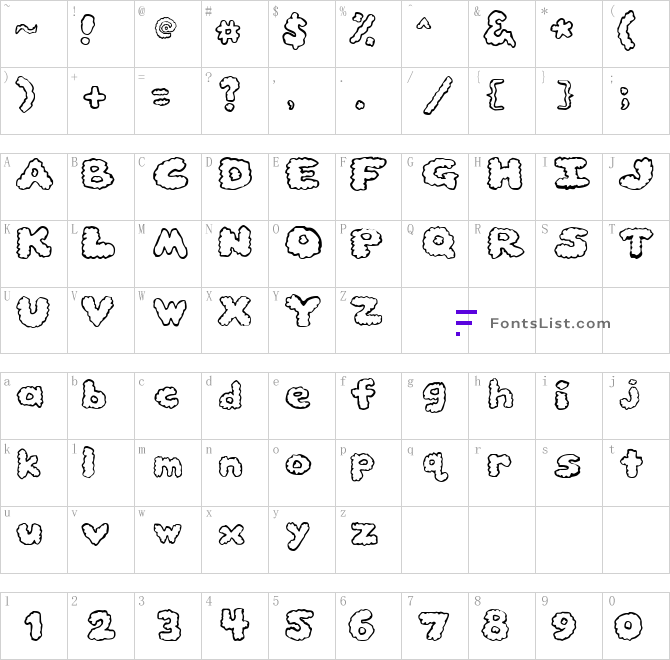
- Font Name:AnniesClouds
AnniesClouds.ttf is a very beautiful artistic font, AnniesClouds.ttf is widely used in the design and printing of various books and pictures,AnniesClouds.ttf has a strong visual impact,AnniesClouds.ttf is a commonly used font in newspapers, magazines and books, and is used in posters, e-commerce Poster design, store design, logo design, font design and other fields.AnniesClouds.